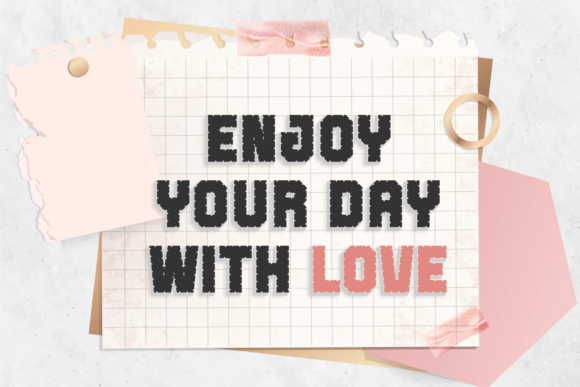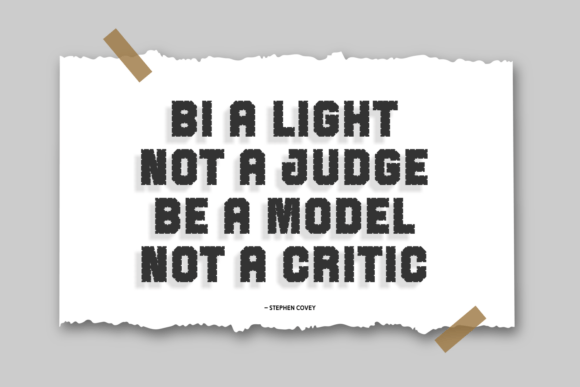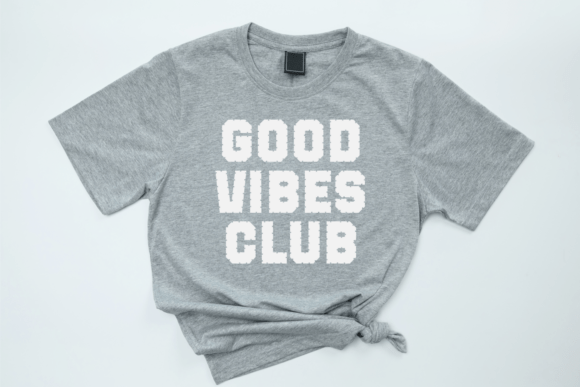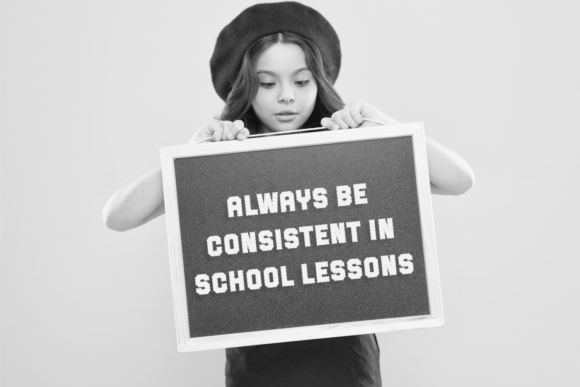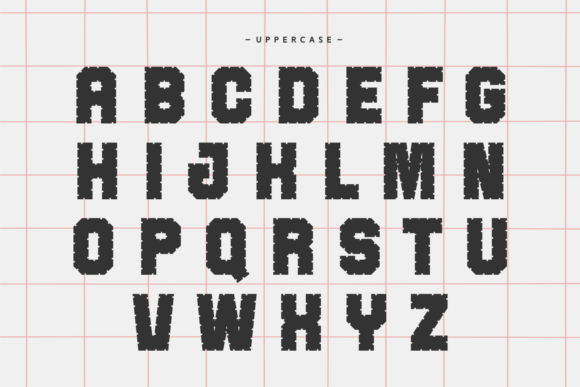
Introducing Coarse Thick Display: The Ultimate Bold and Playful Font
Are you tired of using the same old fonts in your designs? Look no further! We’re excited to introduce Coarse Thick Display, a bold and multifaceted typeface that’s sure to add a touch of fun and elegance to your projects. This groovy and unique font is perfect for crafting eye-catching covers, adorable greeting cards, and a wide range of other creative endeavors.
The Perfect Blend of Playfulness and Elegance
Coarse Thick Display boasts a playful, cheerful tone that’s hard to resist. Its chubby, bold features give it a lighthearted and friendly vibe, making it perfect for designs that need to appeal to kids and adults alike. Whether you’re creating love notes, enhancing a heartwarming quote, or simply looking to add some personality to your project, this font is sure to deliver.
One of the best things about Coarse Thick Display is its versatility. This font is light and casual, yet lighthearted and immensely friendly. It’s a breath of fresh air in the world of typography, and its adaptability makes it perfect for a wide range of applications. Use it in your next magazine issue, include it in your stylish apparel designs, or let it shine in product promotions or poster presentations.
Crafting Eye-Catching Designs with Coarse Thick Display
So, what makes Coarse Thick Display so well-suited for crafting eye-catching designs? For starters, its bold features make it perfect for headlines, titles, and other attention-grabbing elements. Its playful tone also makes it ideal for designs that need to convey a sense of fun and personality. And with its elegant and fanciful touches, it’s sure to add a touch of sophistication to even the most casual of designs.
Ideas for Using Coarse Thick Display
Here are just a few ideas to get you started:
- Create adorable greeting cards for birthdays, holidays, and other special occasions
- Design eye-catching covers for magazines, books, and other publications
- Add a touch of personality to your product promotions and poster presentations
- Incorporate Coarse Thick Display into your stylish apparel designs, such as t-shirts, hats, and more
- Use it to enhance heartwarming quotes, love notes, and other sentimental messages
Why Choose Coarse Thick Display?
So, why choose Coarse Thick Display over other fonts? Here are just a few reasons:
- Unique and groovy design that’s sure to stand out
- Playful, cheerful tone that’s perfect for a wide range of designs
- Bold features that make it perfect for headlines and attention-grabbing elements
- Elegant and fanciful touches that add sophistication to any design
- Versatile and adaptable, making it perfect for a wide range of applications
In conclusion, Coarse Thick Display is a bold, multifaceted typeface that’s sure to add a touch of fun and elegance to your designs. Its playful, cheerful tone, chubby, bold features, and elegant and fanciful touches make it perfect for a wide range of creative endeavors. Whether you’re a designer, crafter, or simply someone looking to add some personality to your project, Coarse Thick Display is the perfect choice. So why wait? Give it a try today and see the difference it can make!